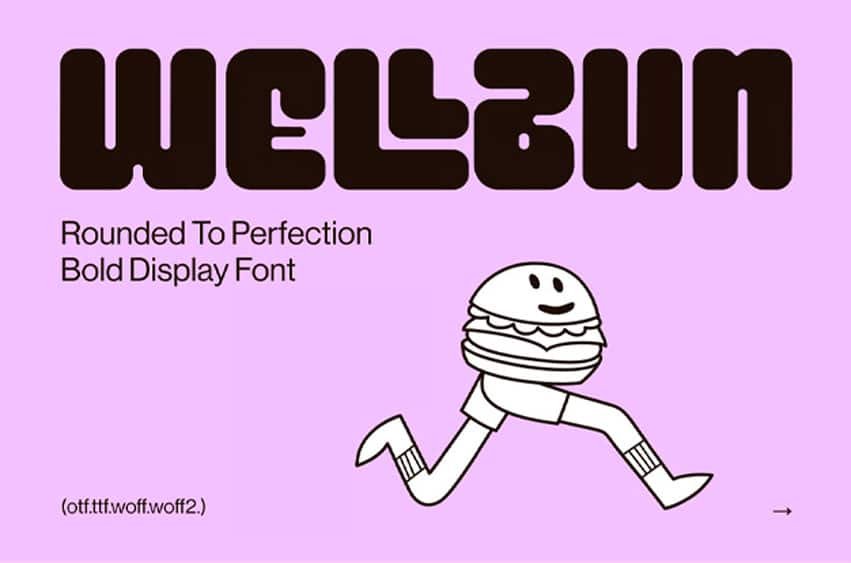
Wellbun Font Rounded To Perfection Bold Display Font, a chunky and friendly display typeface crafted to make food branding irresistible. With its smooth curves and confident weight, Wellbun is especially recommended for restaurant logos, burger joint branding, and food packaging design. Beyond casual dining, its approachable personality also adapts beautifully to bakery signage, food truck branding, and playful menu design.
Inspiration Behind Wellbun
The vision for Wellbun – Rounded To Perfection Bold Display Font was to capture the comfort of a freshly baked bun in every letterform. Inspired by classic diner signage and the soft, satisfying shapes found in comfort food, each character is rounded and full-bodied, built to feel warm rather than sharp. This makes it perfect for brands that want to feel friendly and appetizing, whether on a burger wrapper or a restaurant storefront sign.
Key Features of Wellbun
- Rounded Design: Smooth, bold letterforms built to feel warm and appetizing.
- Versatile Appeal: Works seamlessly for restaurants, bakeries, and food truck branding.
- High Quality: Clean vector construction ensures crisp results at any size.
- Restaurants and Diners: Build appetite appeal with Wellbun on menus, signage, and branding.
- Burger and Fast Food Brands: Add bold, friendly character to packaging and storefronts.
- Bakeries and Cafes: Bring warmth to pastry labels, chalkboards, and price lists.
- Food Trucks and Casual Dining: Give mobile and quick-service brands a fun, memorable identity.
With Wellbun – Rounded To Perfection Bold Display Font, you’ll deliver warmth and appetite appeal in every food branding project. Whether you’re branding a burger joint, designing a bakery label, or creating high impact restaurant signage, Wellbun delivers friendliness and personality that speaks directly to hungry audiences.